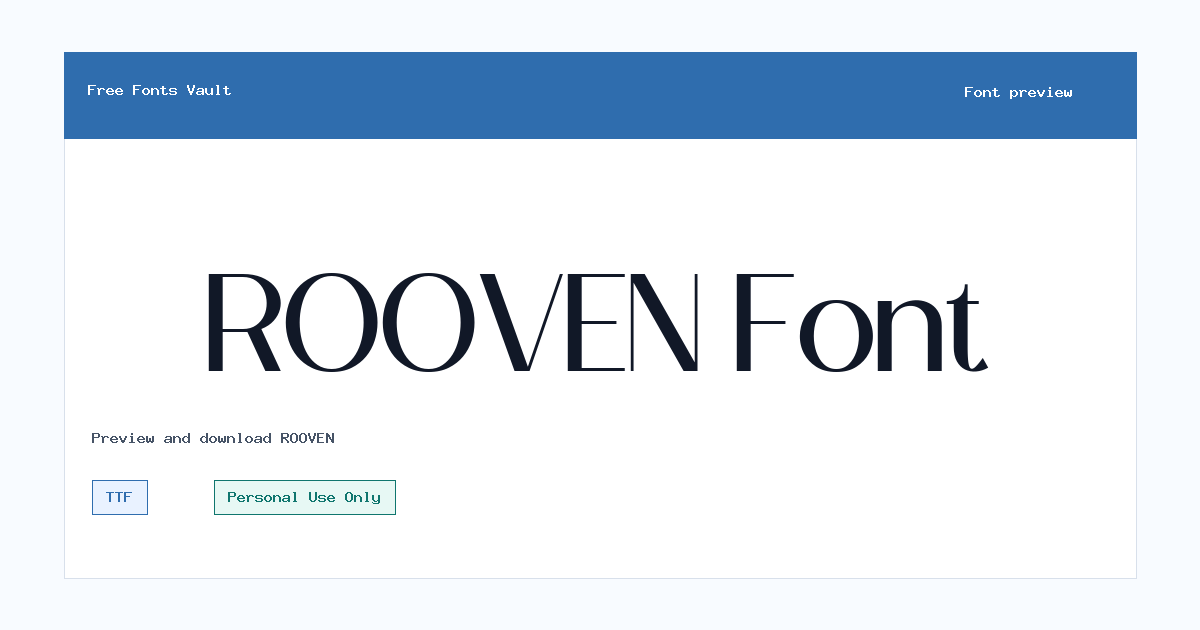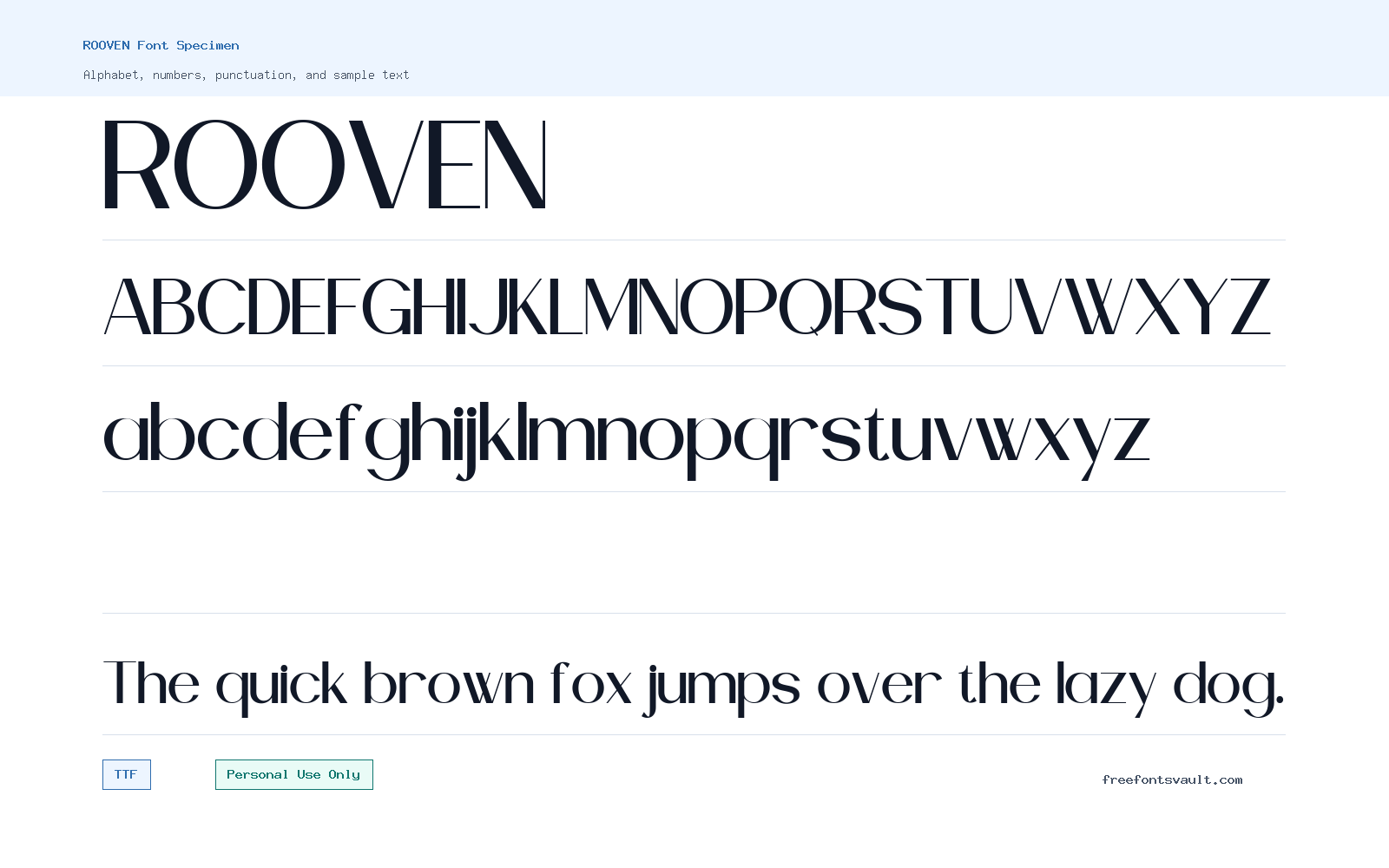
ROOVEN
ROOVEN font.
ROOVEN is a sans serif font for personal projects, short display text, and design previews where a clean letterform style is useful. Use the live preview to test your own words before downloading, especially if you plan to use it for titles, logos, posters, or mockups.
About ROOVEN Font
ROOVEN is presented as a sans serif font family with a regular TTF file. Because the available file is a regular weight, it is best approached as a straightforward display or text-testing font rather than a full multi-weight type system. That does not make it less useful, but it does mean you should test it carefully in the exact size and setting you want to use. Try uppercase words, short names, numbers, and a few punctuation marks in the preview. This helps you see whether the spacing, rhythm, and character shapes fit your design before you build a larger layout around it.
For designers, ROOVEN can be useful in early visual concepts, personal branding drafts, social graphics, posters, headers, and web mockups. It may work well when you need a sans serif voice without relying on a default system font. For logo work, test the brand name at both large and small sizes, then check how the letters behave when placed inside a mark, badge, or horizontal lockup. If you are using it in a poster or thumbnail, keep the wording short and give the letters enough room. A single regular style can look clean in simple layouts, but it may need support from another font when a project needs hierarchy, body copy, captions, or strong contrast between sections.
- Sans serif font style suitable for clean personal design drafts, previews, and short text settings.
- Single regular weight, so layout hierarchy may need size, spacing, color, or a paired font.
- Personal logo concepts and name-based design sketches
- Poster titles, social media graphics, and short headlines
- Website hero mockups, landing page drafts, and UI concept screens
- Mood boards, typography tests, and non-commercial branding explorations
- Simple personal invitations, covers, labels, and presentation titles
The designer name associated with ROOVEN is FLAWLESSANDCO. No foundry information or designer website is listed for this font.
What kind of font is ROOVEN?
Will ROOVEN work for body text?
It may be better to test ROOVEN in short text first. Since only a regular style is listed, longer reading layouts may need another font for body copy, captions, or stronger hierarchy.
Who designed ROOVEN?
ROOVEN is associated with FLAWLESSANDCO as the designer.